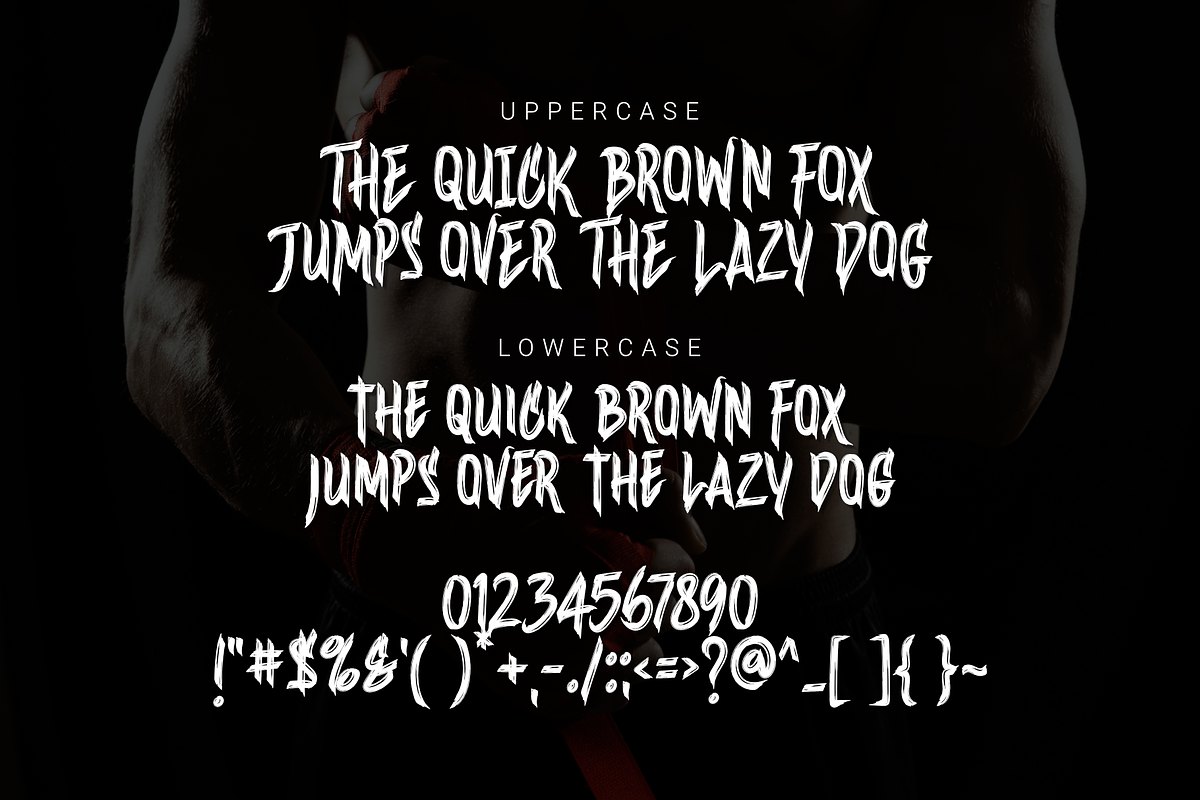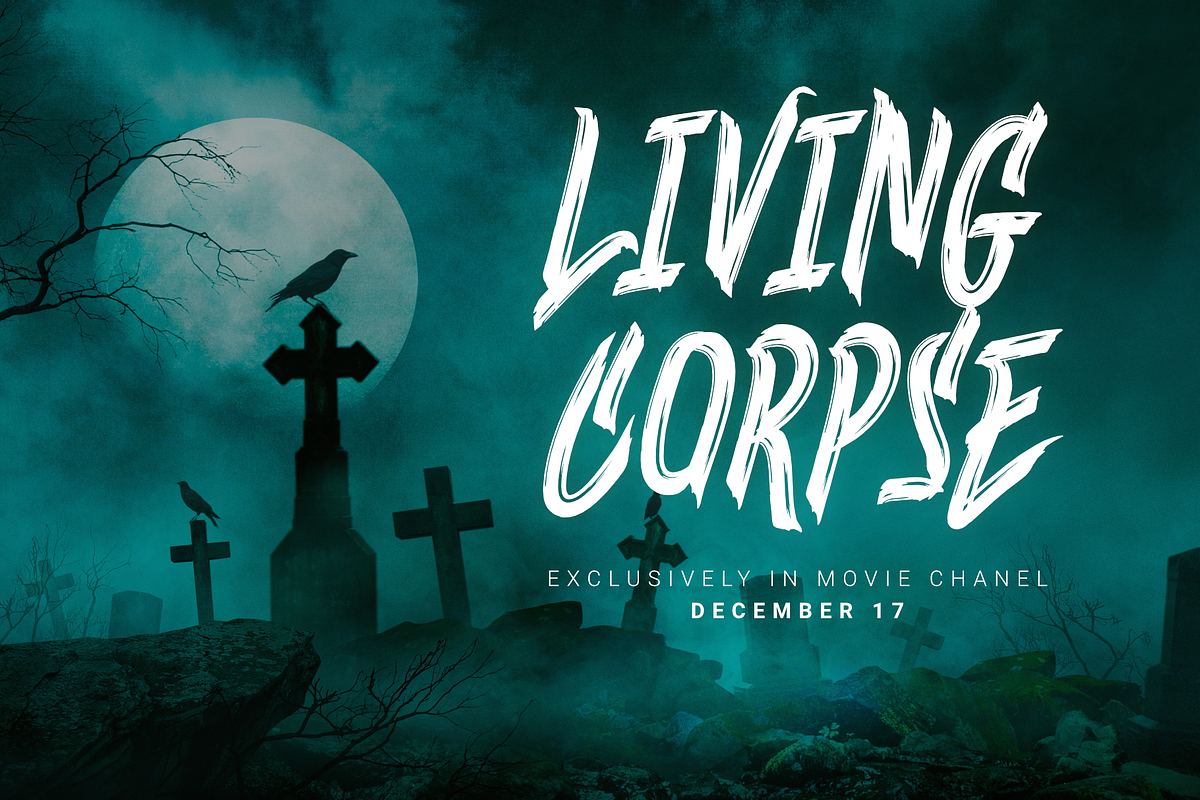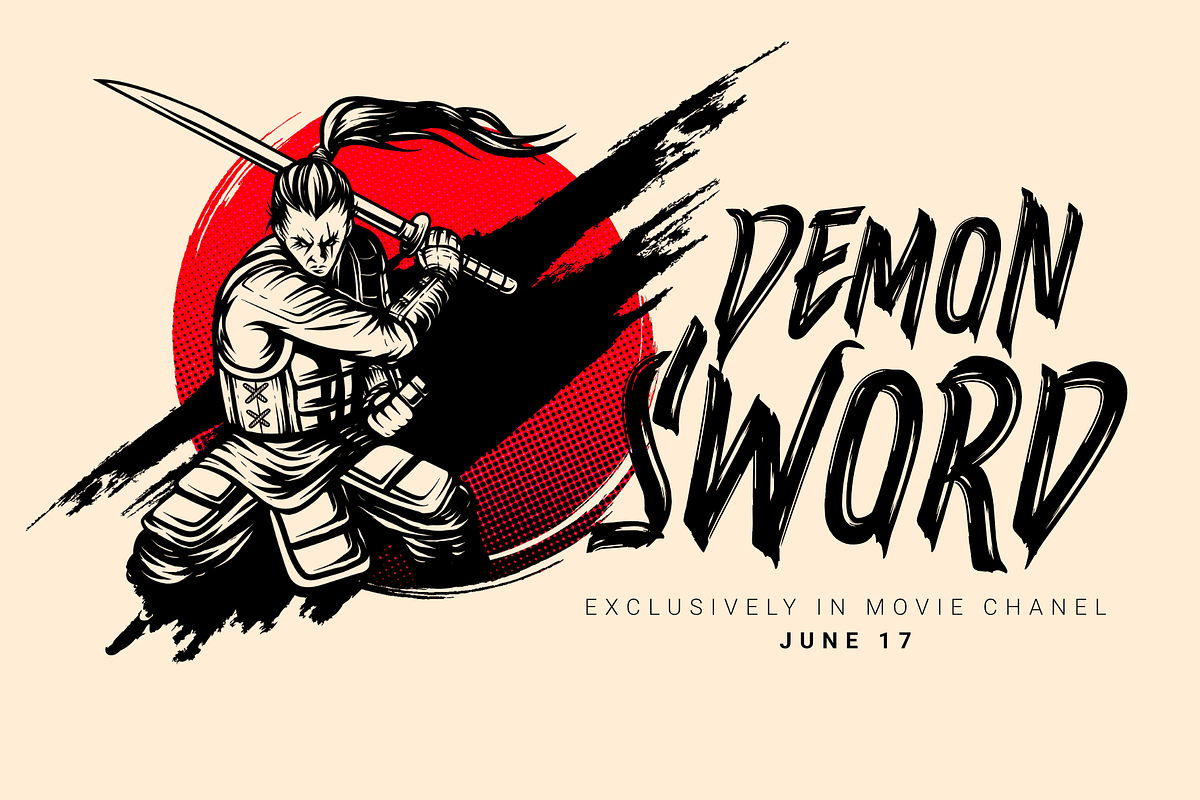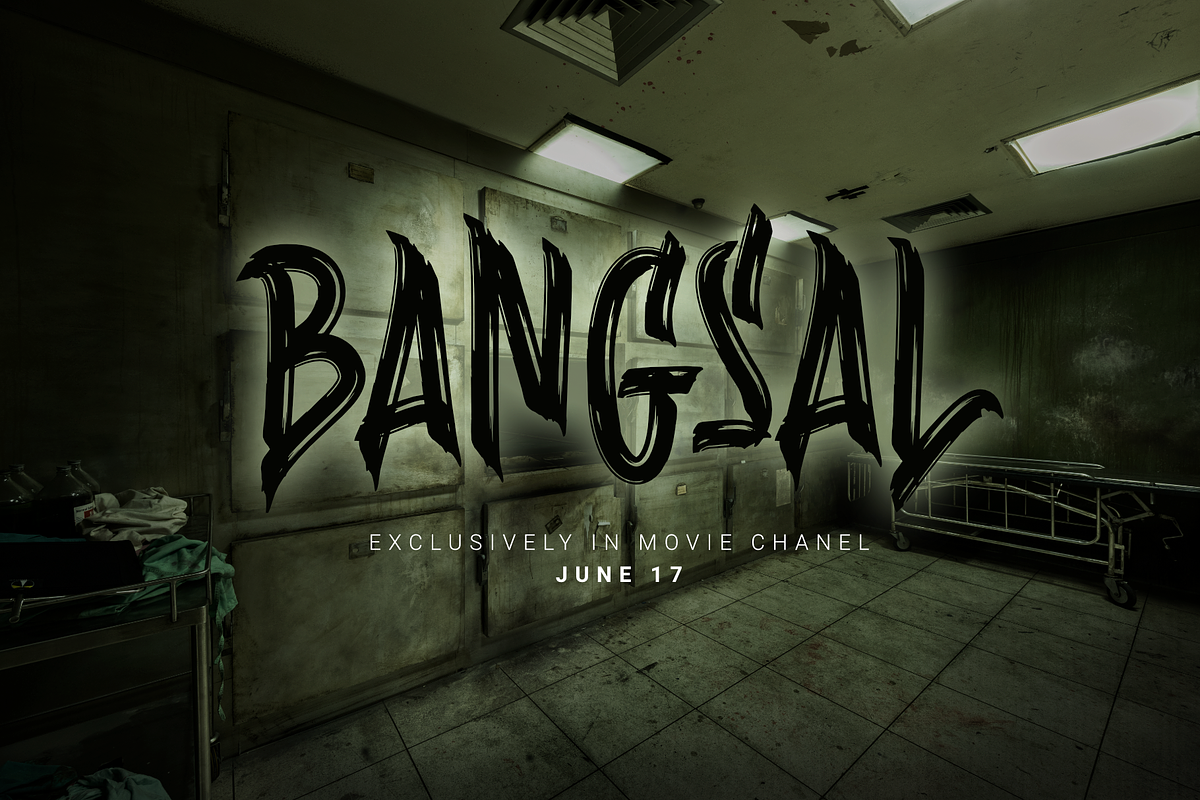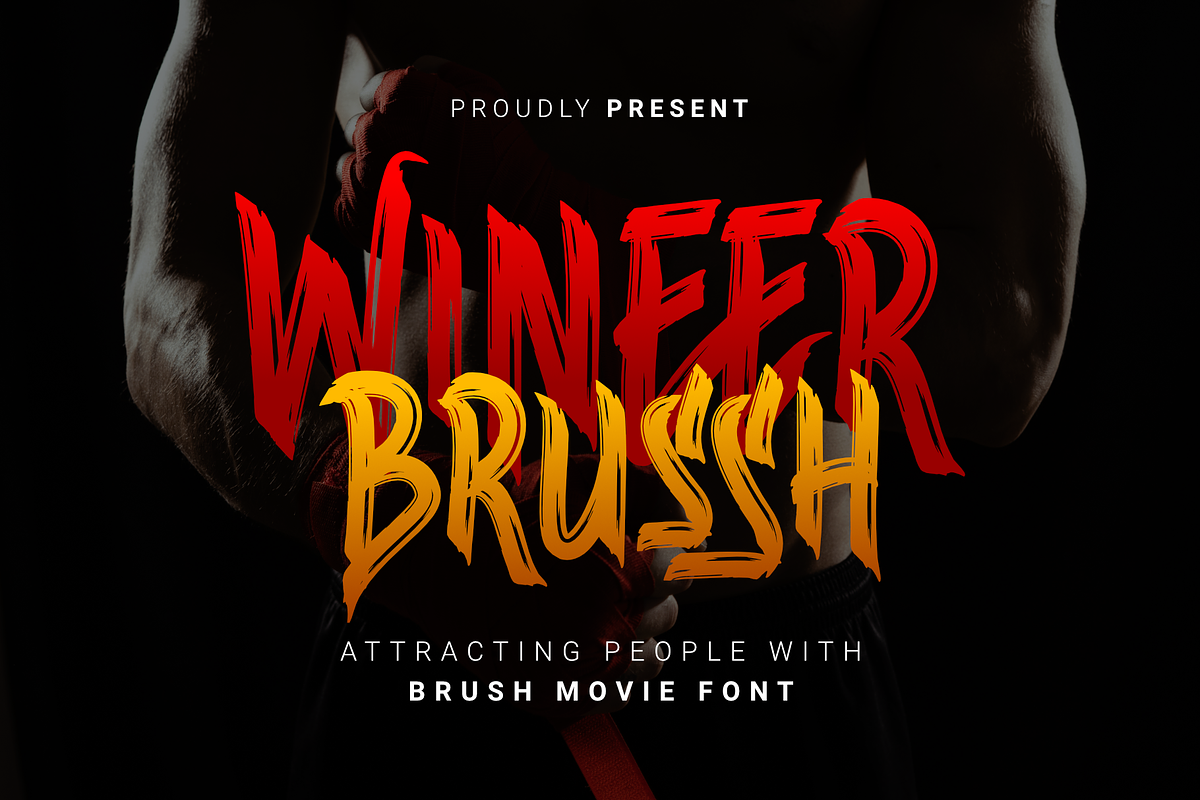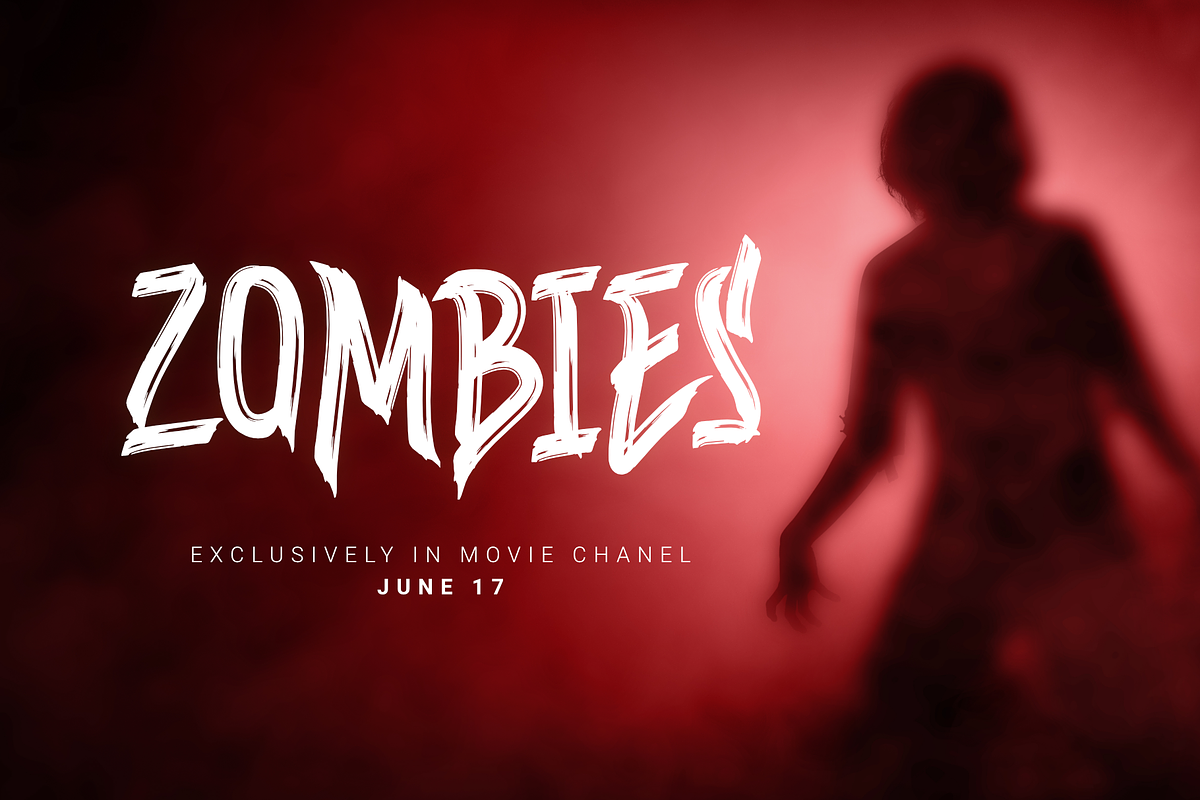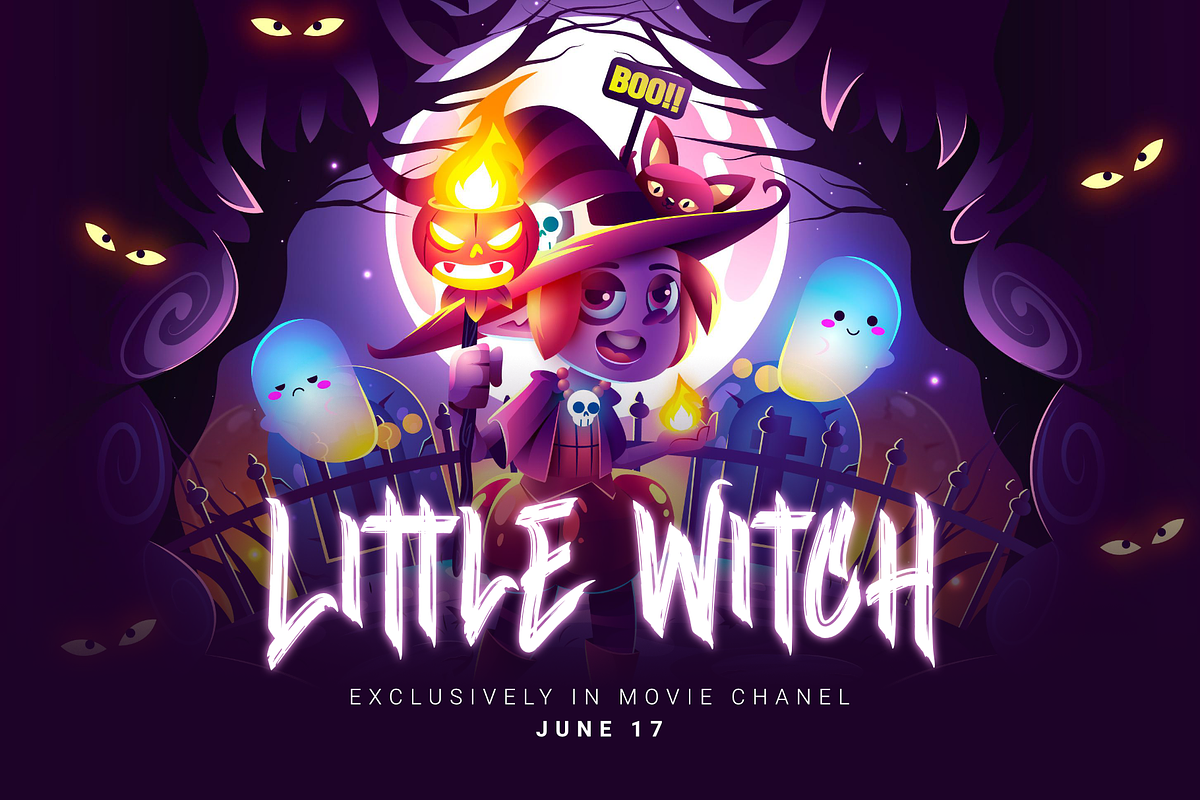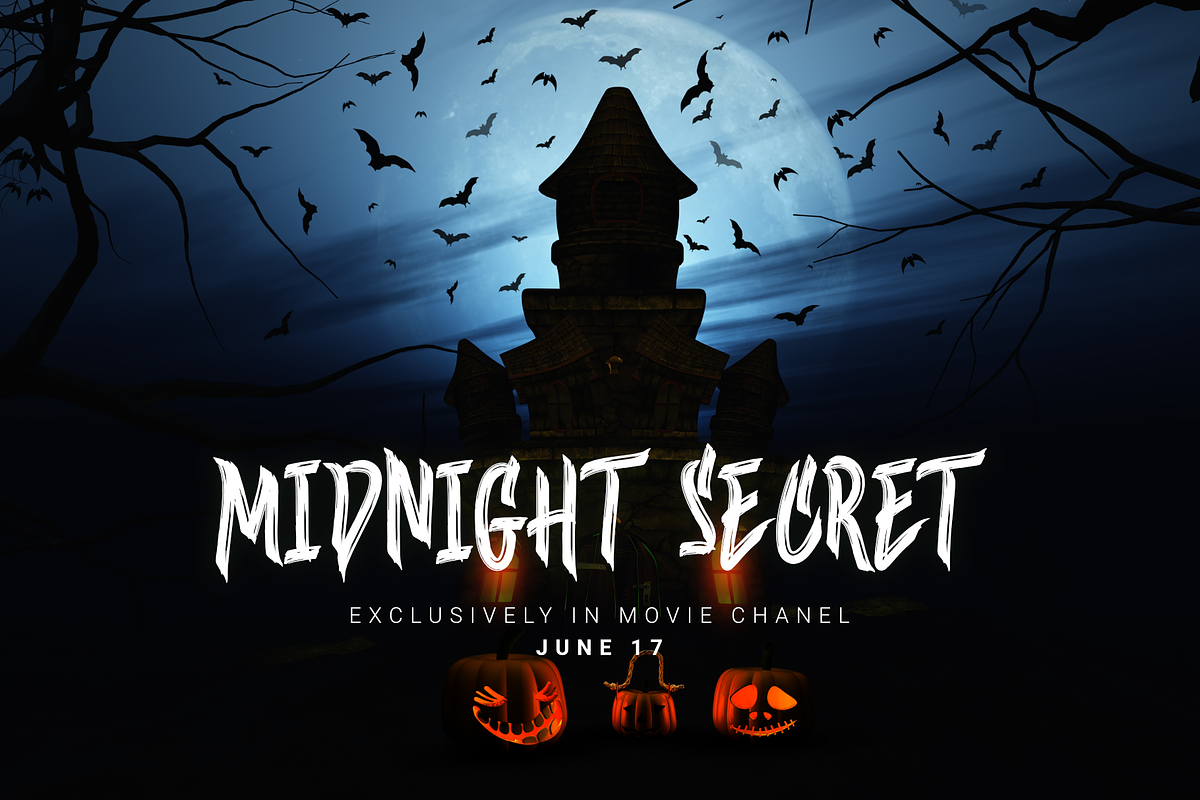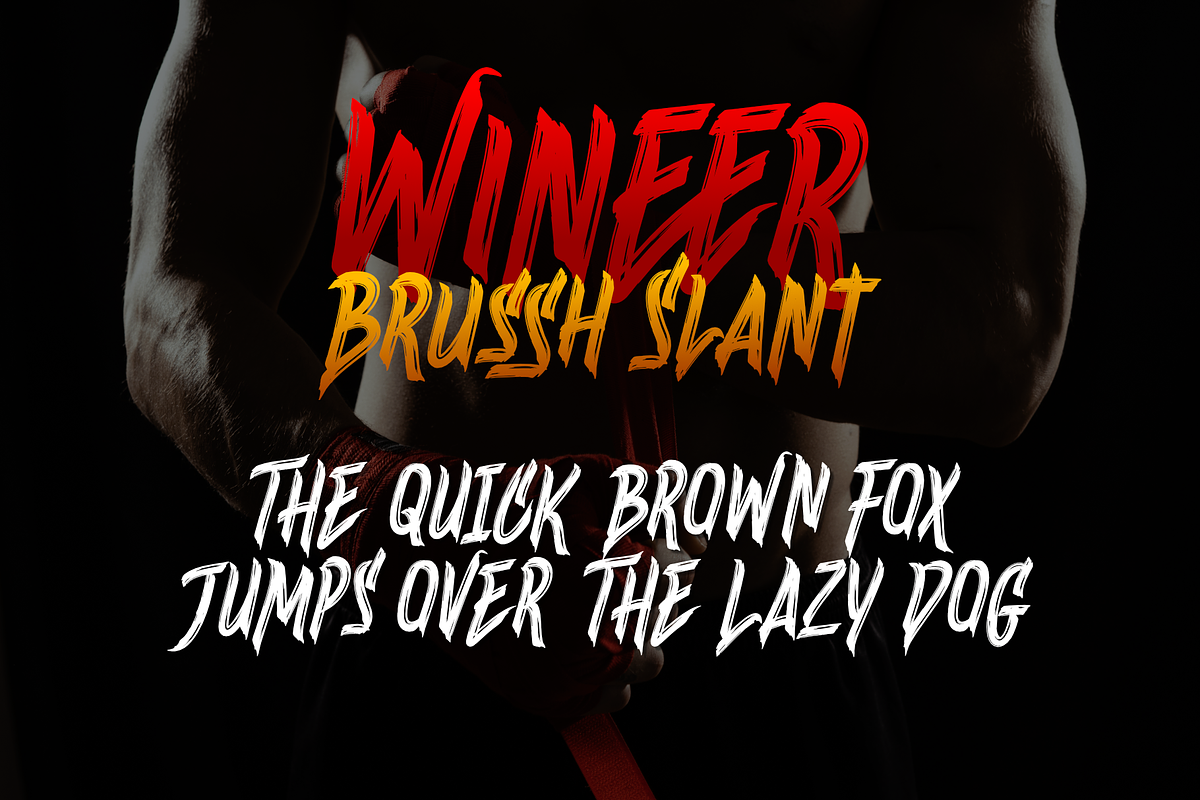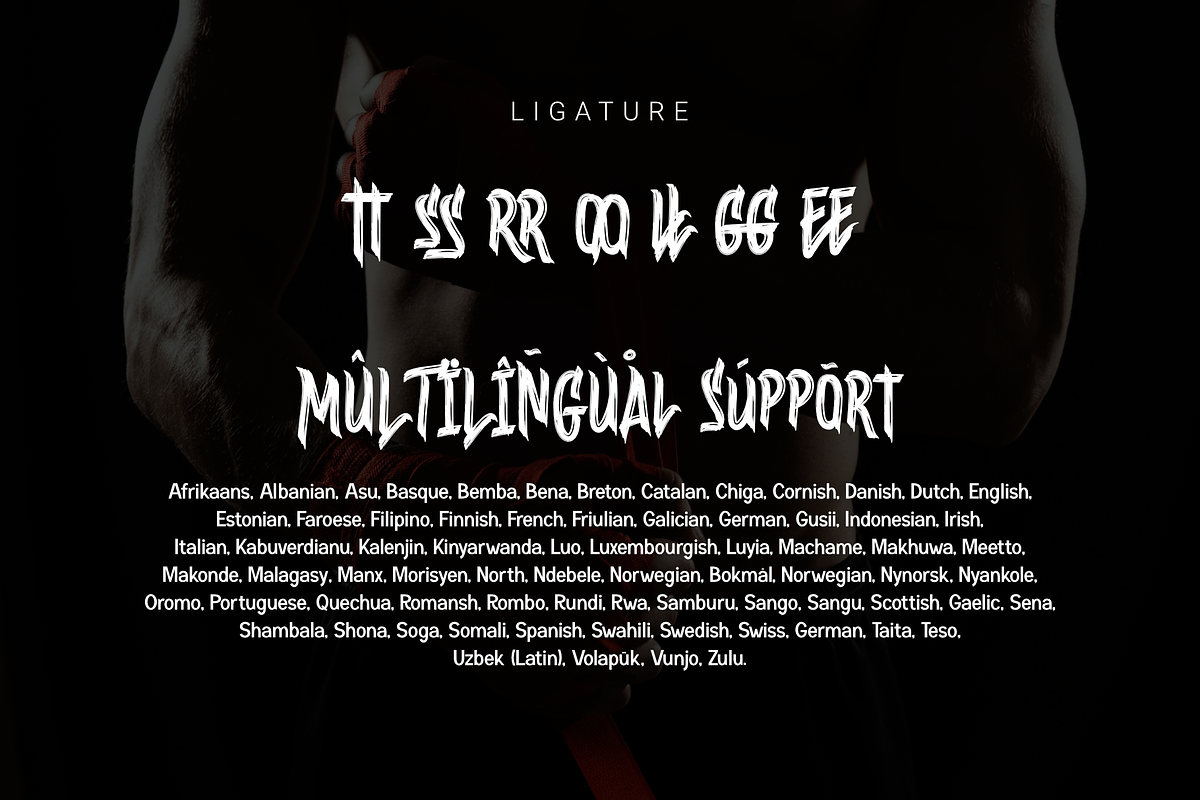
Wineer Brussh
Wineer Brussh is a brush-type font that is uniquely crafted and has an amazing texture character making it perfect for collaborating with your projects.
Wineer Brussh is a font that is equipped with uppercase, lowercase, ligature, and multilingual which is suitable for movie titles, videos, scary, action, fantasy, and thriller titles like the example in the preview image above.